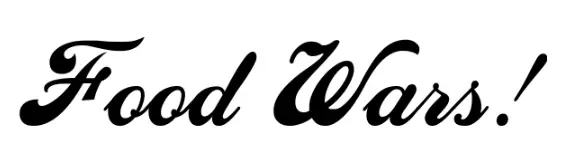
The Food Wars Font is a distinctive and stylish typeface associated with the popular Japanese manga and anime series, Food Wars! Shokugeki no Soma. The series revolves around the culinary adventures of Yukihira Soma, a young chef competing at the prestigious Totsuki Culinary Academy. The font used in the Food Wars! logo and branding is a key element of its visual identity, exuding a bold and dynamic vibe that complements the show’s energetic theme.
Similar Fonts:
If you’re looking for fonts that resemble Food Wars Font, here are some great alternatives:
Sedona Script FLF by Richard A. This is the closest replica of the Food Wars! logo font. It features bold, flowing script strokes that mimic the original design.
Philly Sport Script by URW Type Foundry A similar font with a sporty, dynamic script style that aligns well with the Food Wars! vibe.
Yorkson by Letterhend This font offers a similar bold and playful script style, making it a great alternative.
Ballingtone Regular by Bal Studio Another excellent option with a comparable bold and artistic script design.